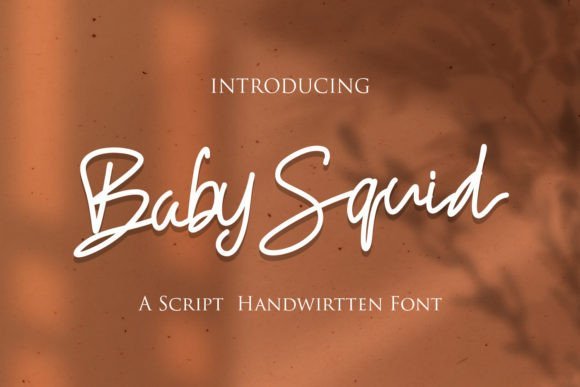
The Birth of a Luxury Typography: Baby Squid Font
Have you ever been stuck on a design project, staring blankly at your computer screen, searching for the perfect font to bring your vision to life? I know I have. It’s those moments of creative frustration that remind us why we love typography in the first place – the thrill of discovery, the rush of excitement when we find ‘the one’.
Enter the Baby Squid Font, a stunning script font that exudes luxury and beauty. With its intricate loops and elegant curves, this font is the perfect choice for designers seeking to convey a sense of opulence and refinement. Whether you’re creating high-end branding materials, elegant wedding invitations, or sophisticated digital interfaces, the Baby Squid Font is sure to elevate your design to new heights.
As a valuable addition to any designer’s toolkit, the Baby Squid Font offers a level of sophistication and elegance that’s hard to find in other fonts. Its versatility and beauty make it a must-have for any designer looking to take their work to the next level.
Baby Squid Font Key Features
- Font Family: Baby Squid Font is a handwritten font designed for creative and artistic purposes.
- Unique Characteristics: Features a playful, whimsical style with subtle imperfections, giving it a hand-drawn feel.
Baby Squid Font Review
Overall, I’d say the Baby Squid Font is a unique and eye-catching font. ✨ It’s perfect for adding a touch of whimsy and playfulness to your design projects. The font’s irregular, hand-drawn style gives it a charming, organic feel that’s hard to resist.
- ✨ The font’s quirky, handwritten feel is great for creating a sense of personality and character in your designs.
- ✨ The font is highly legible, even at smaller sizes, making it a great choice for body text or captions.
- ✨ The font’s wide range of weights and styles makes it easy to customize and match with other fonts.
- ⚠️ The font may not be suitable for formal or professional designs, as it can come across as too playful or childish.
- ⚠️ The font’s irregular style can be challenging to read in certain contexts, such as in small print or at high speeds.
- ⚠️ The font may require additional styling or formatting to ensure proper rendering in certain software or environments.
Overall, I’d recommend the Baby Squid Font for designers who want to add a touch of whimsy and personality to their projects. With a little creativity and care, this font can be a real showstopper.
Tips for Getting the Most Out of Baby Squid Font
For optimal results, use the Baby Squid Font in combination with bold or italic styles to create visual interest. Pair it with simple backgrounds and bold graphics to make your text stand out.
The Baby Squid Font is ideal for use in children’s book illustrations, nursery decor, and whimsical graphic designs. Its playful and quirky style makes it perfect for adding a touch of personality to your designs.
What is the character set and language support for Baby Squid Font?
The Baby Squid Font family includes a comprehensive character set, covering Latin, Cyrillic, and Greek alphabets, as well as punctuation and symbols. It also supports a wide range of languages, including English, Spanish, French, German, Italian, Portuguese, Dutch, Russian, and many others.